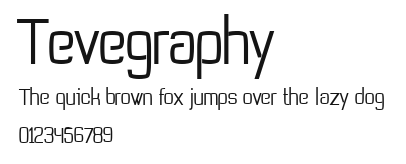
Tevegraphy Preview
• Font Name: Tevegraphy
• Font ID: MnsGrebck: Tevegraphy Medium: 2011
• Full Font Name: Tevegraphy Medium
• PostScript Name: Tevegraphy-Medium
• Designer: Måns Grebäck
• Manufacturer: Måns Grebäck
About Tevegraphy.ttf
Tevegraphy.ttf is a modern, elegant sans-serif font designed for ultimate readability and visual harmony. Perfect for branding, headlines, web design, and print materials.